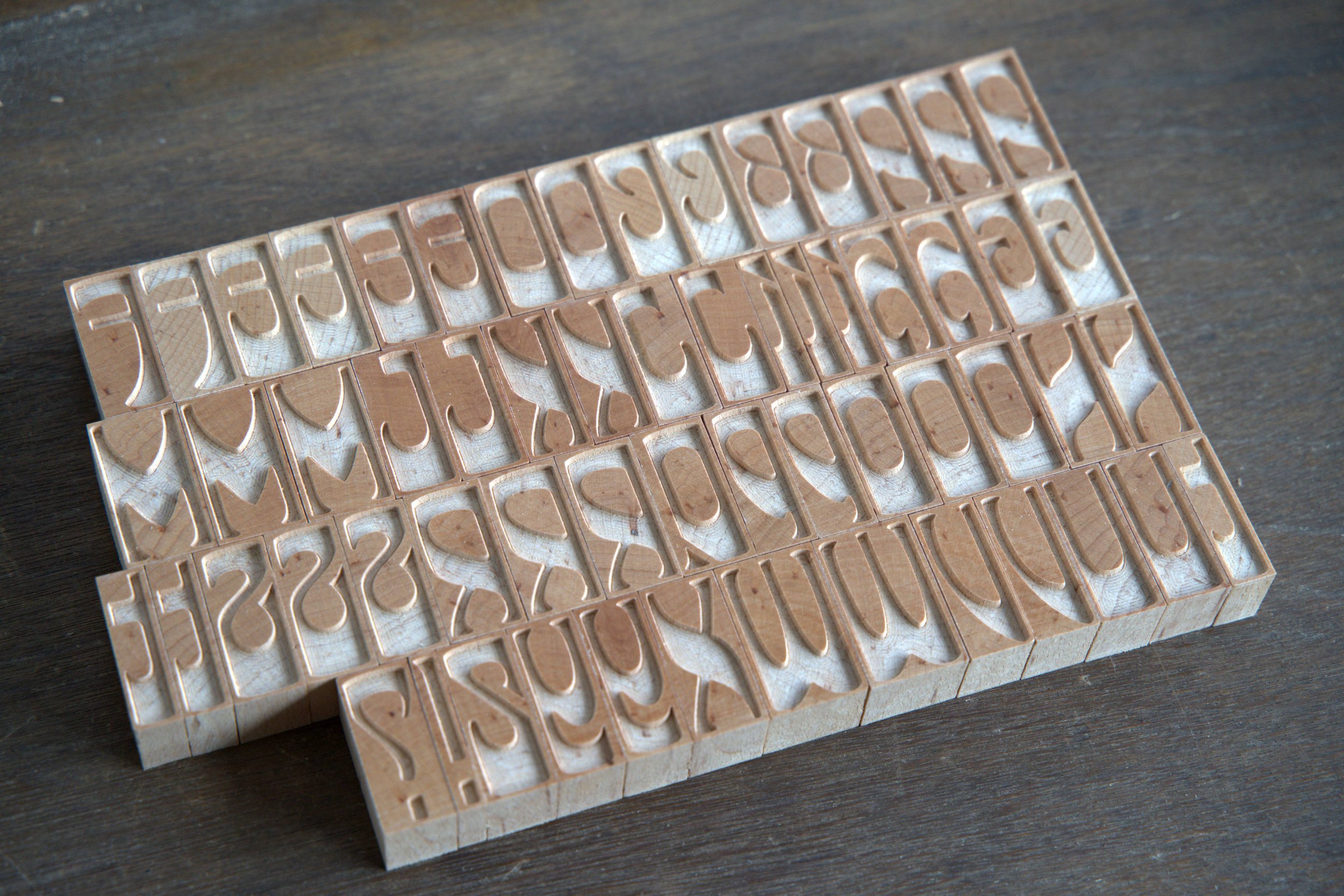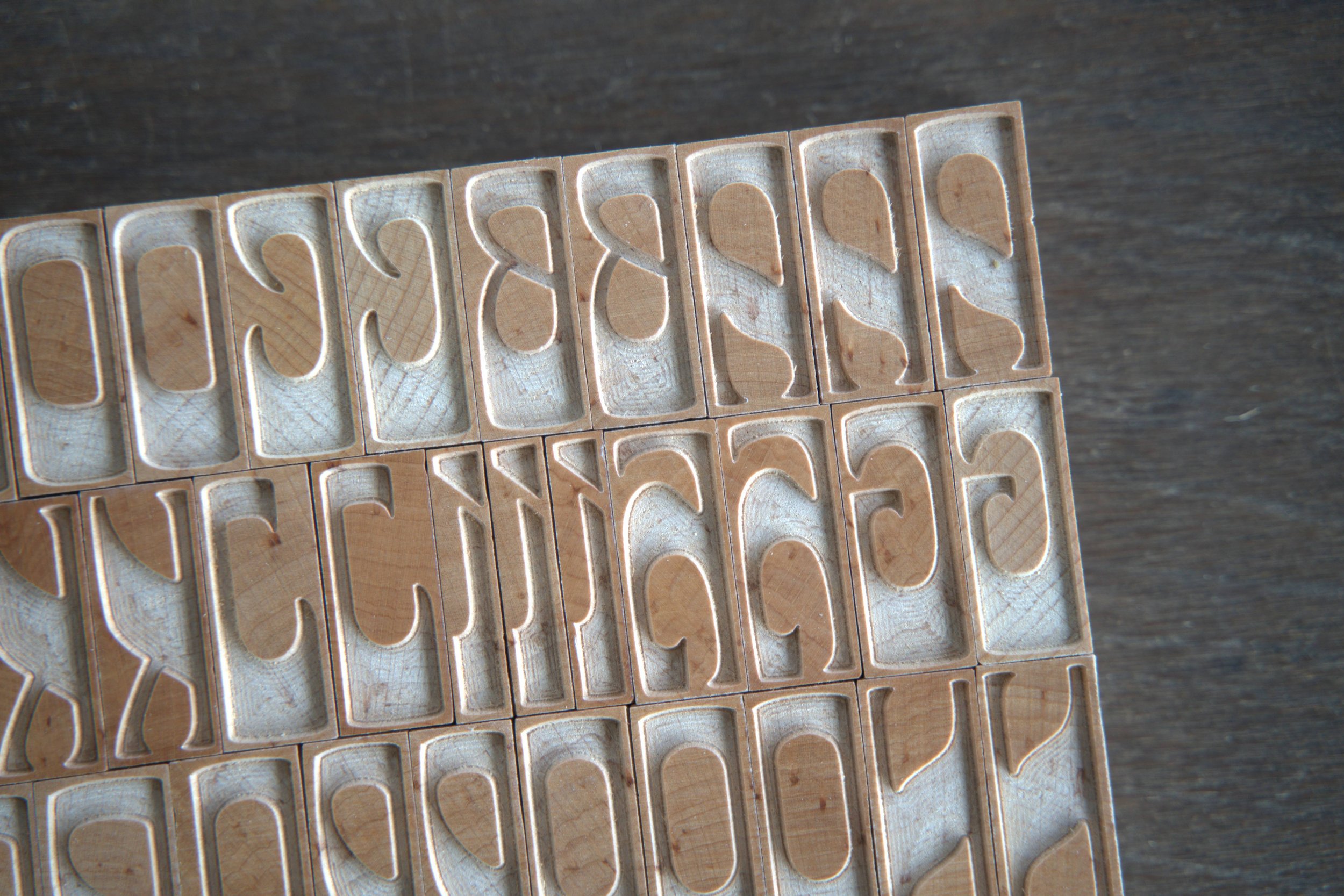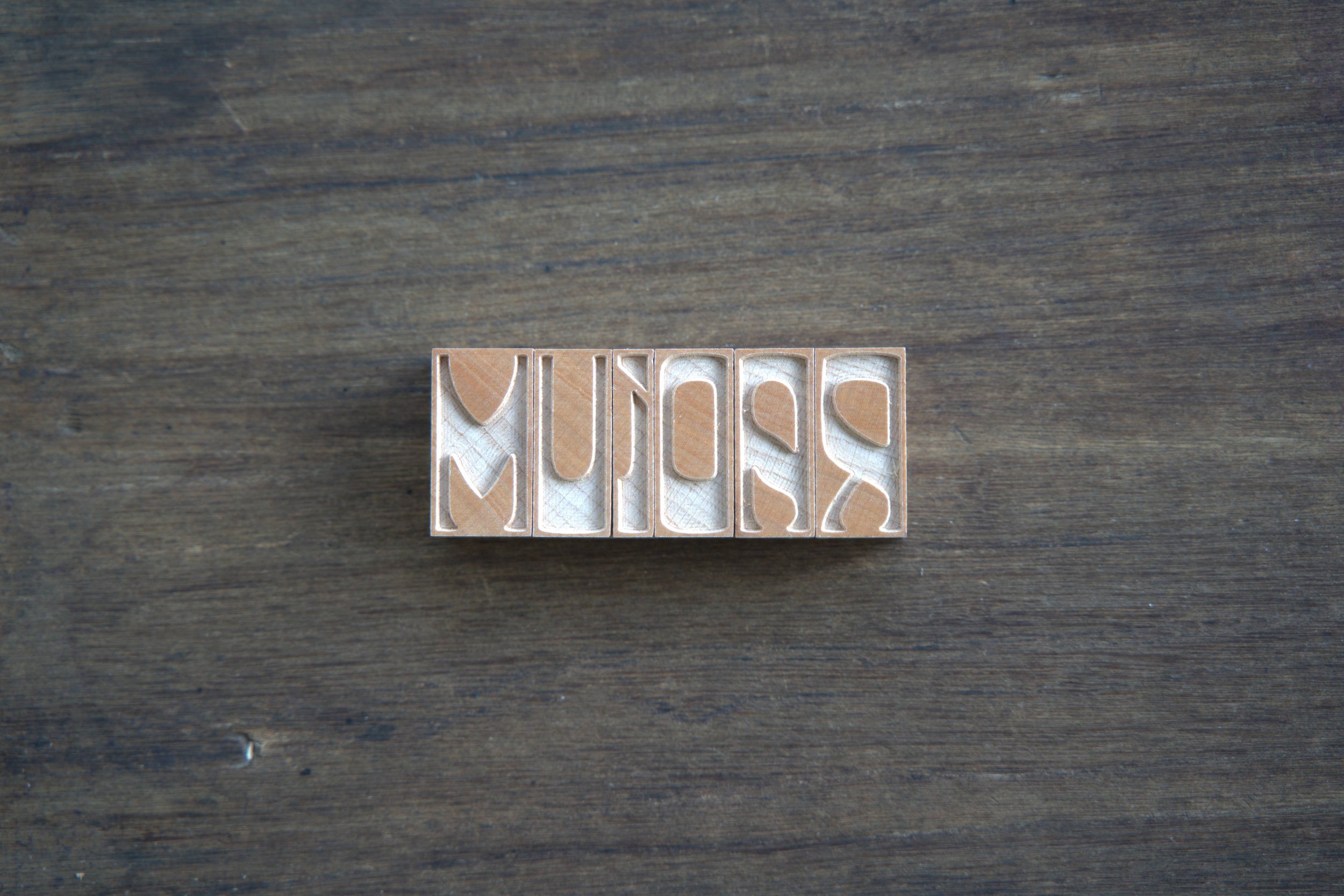
WF Radium (Negative)
Introducing WF Radium in collaboration with Oliver Weiss of Walden Font Co.
WF Radium is a German Jugendstil Art Nouveau font which Oliver revived from extinct originals created in 1905 by the Schelter & Giesecke foundry in Leipzig, Germany.
Samples of the original typeface can be found in the product photos. This variant is the negative, reversed-contrast-style revival of the original font. There is also a positive variant available now available in wood type!
This face is part of Walden Font Co.’s Art Nouveau Print Shop Vol.1, WF Radium was meticulously researched, redrawn, and expanded for modern use.
End grain beech hardwood finely sanded to type height. Each block is finished with shellac and polished with fine steel wool for a smooth print surface.